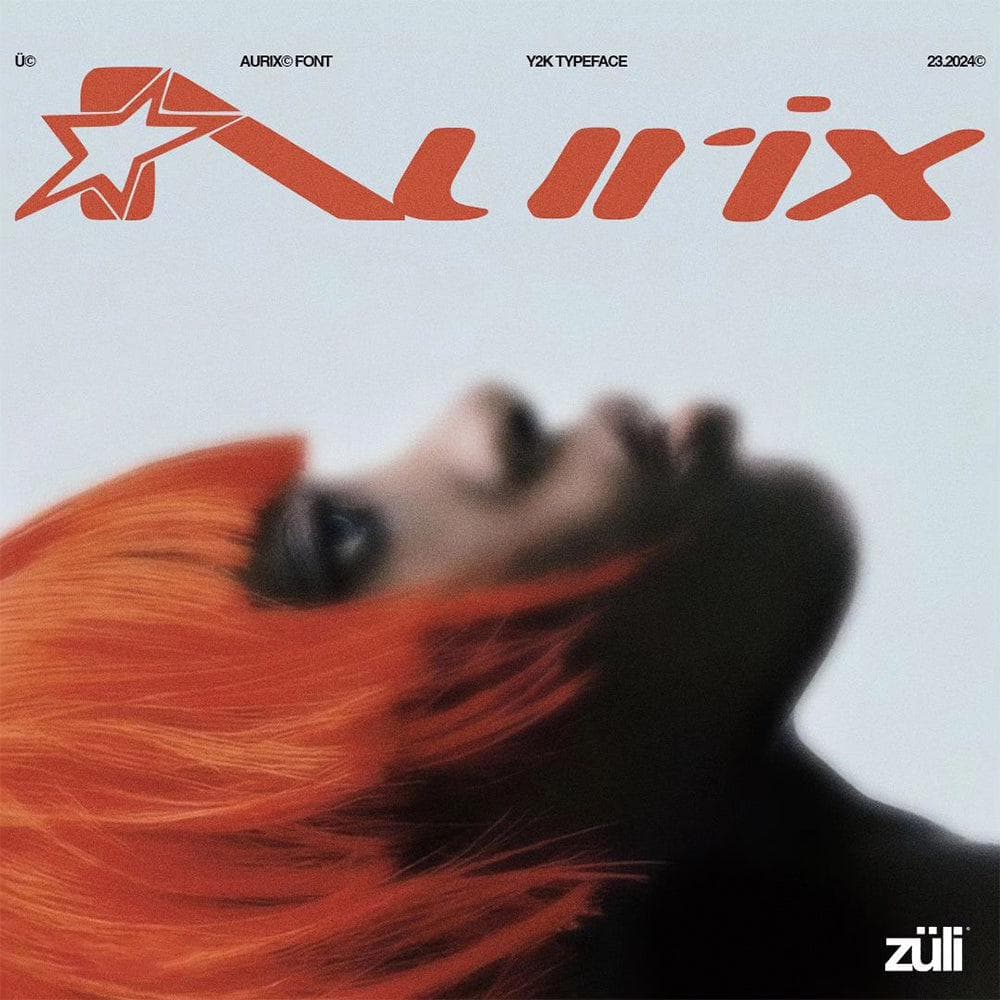
<p><strong>Font Features:</strong></p> <ul> <li>The font is in Y2k Style</li> <li>Capital alphabets has a Y2k shapes <strong>"Ready for use"</strong> </li> <li>The font is ready just to put in your design no need to edit</li> <li>Will fit in any design</li> </ul>